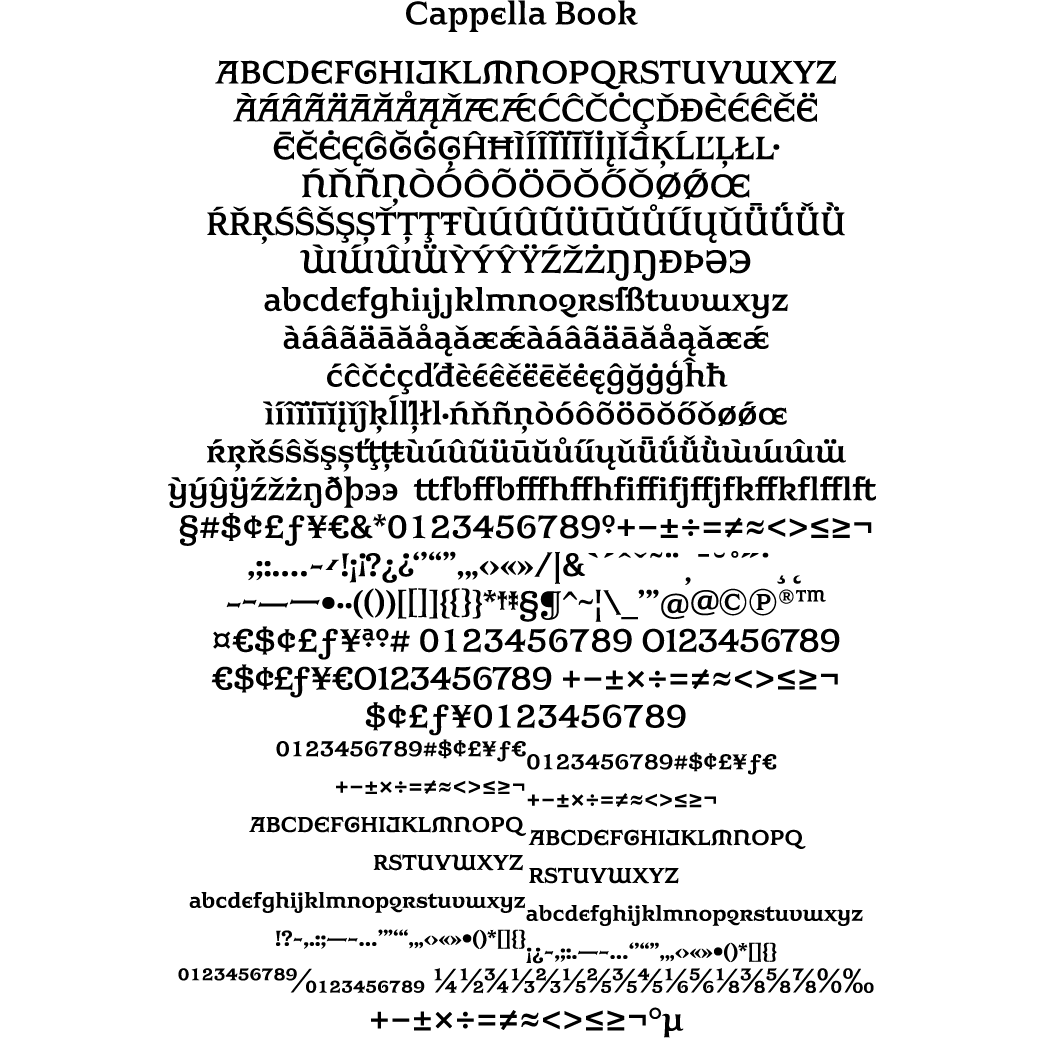
Cappella®
Certainly not appropriate for every typographic challenge, I do think Cappella is remarkable fresh and interesting and hope you’ll give it a try.